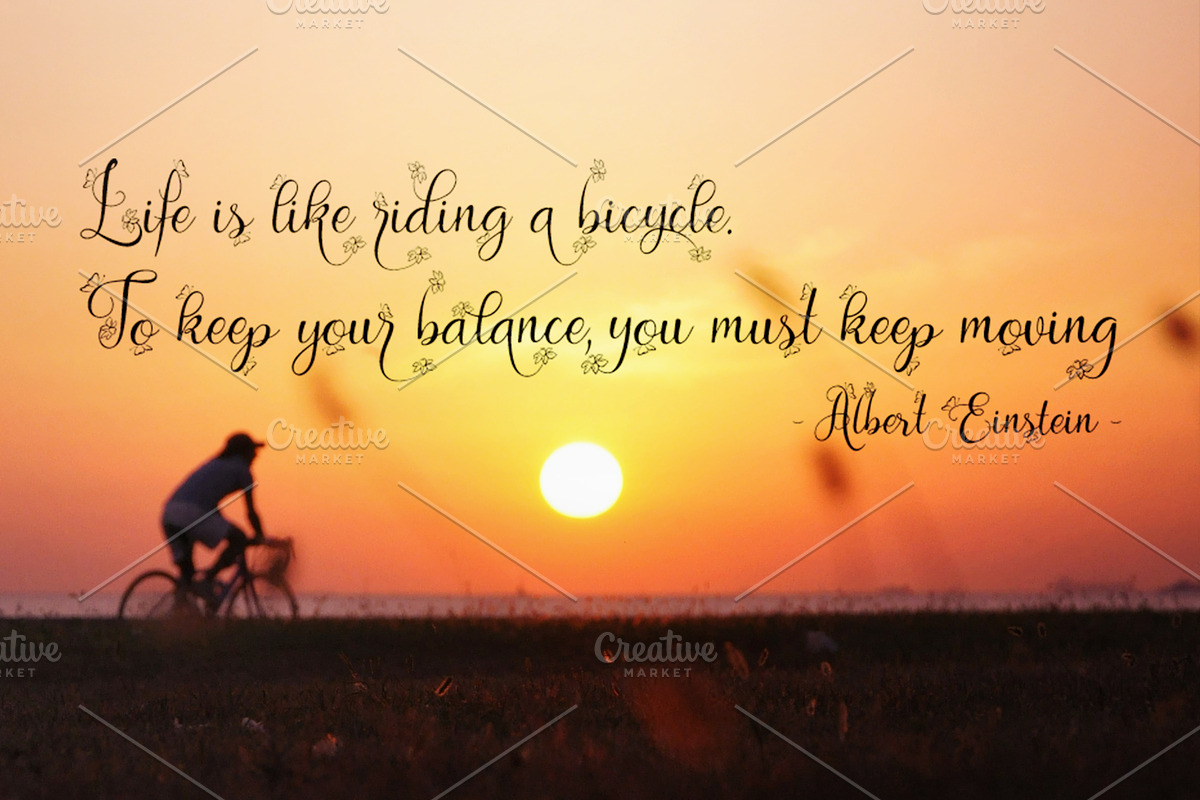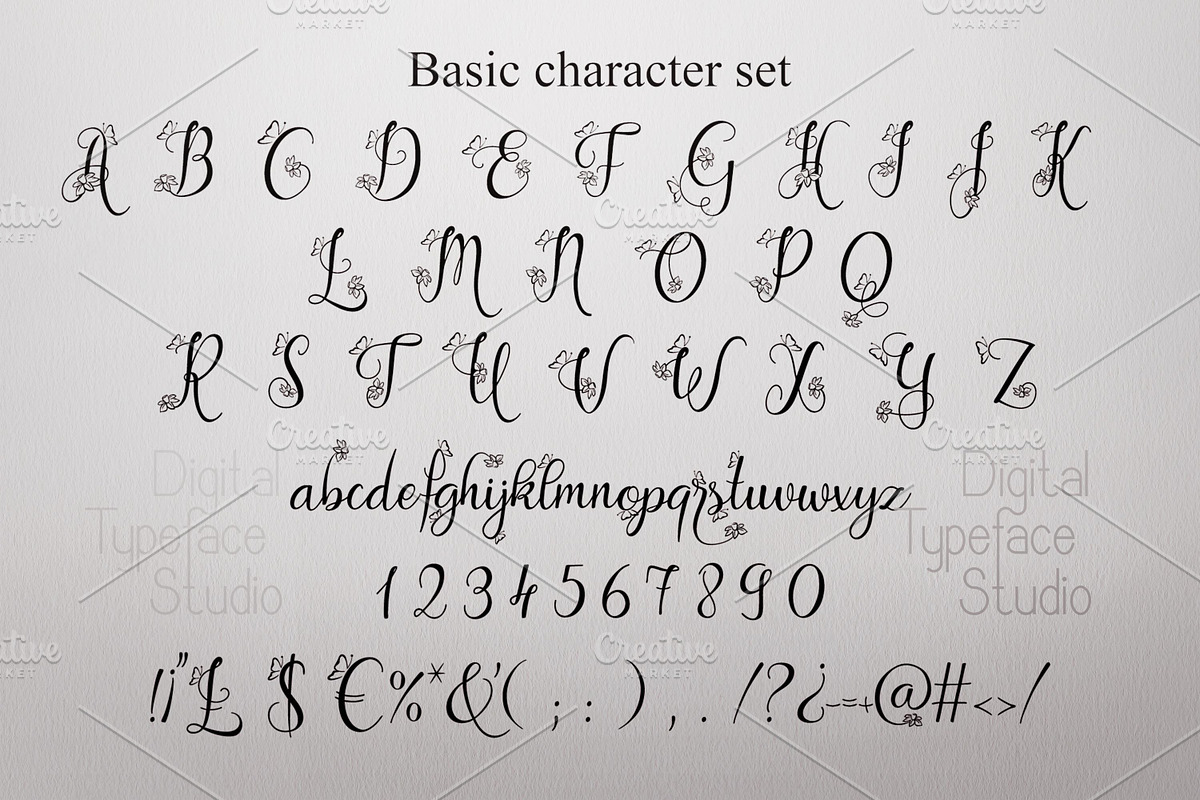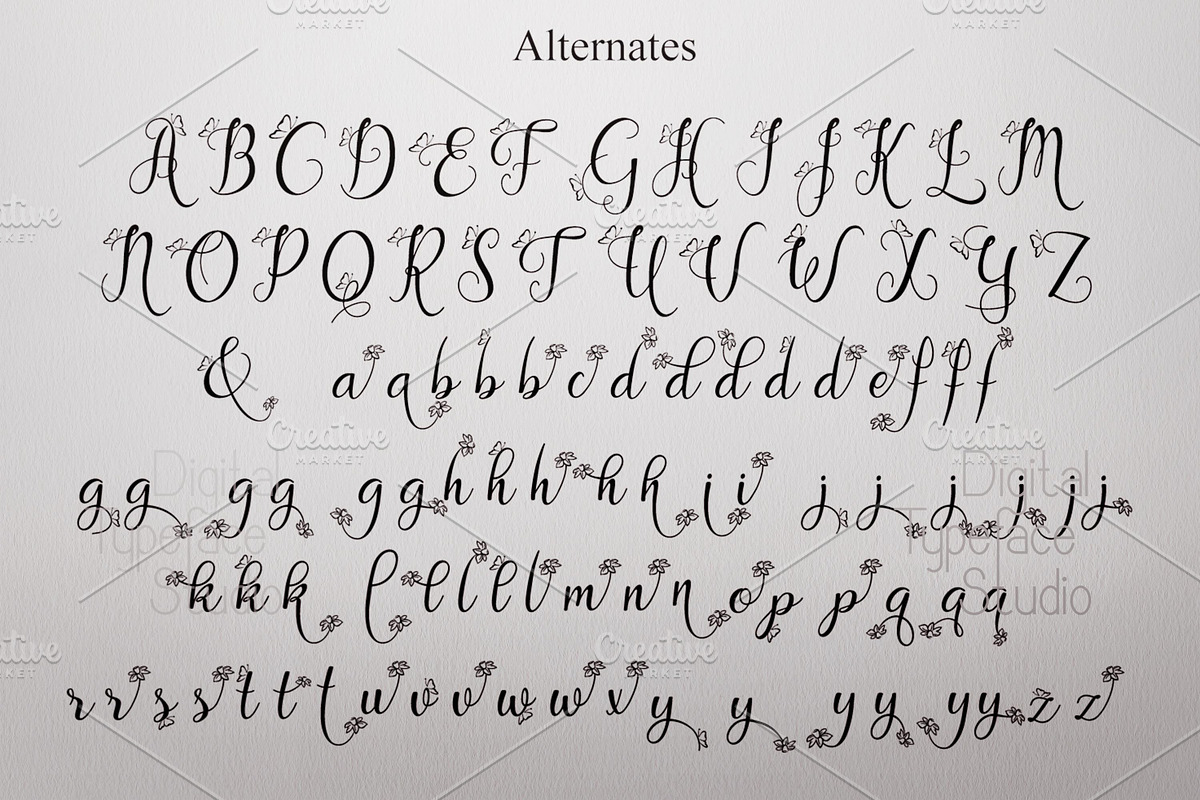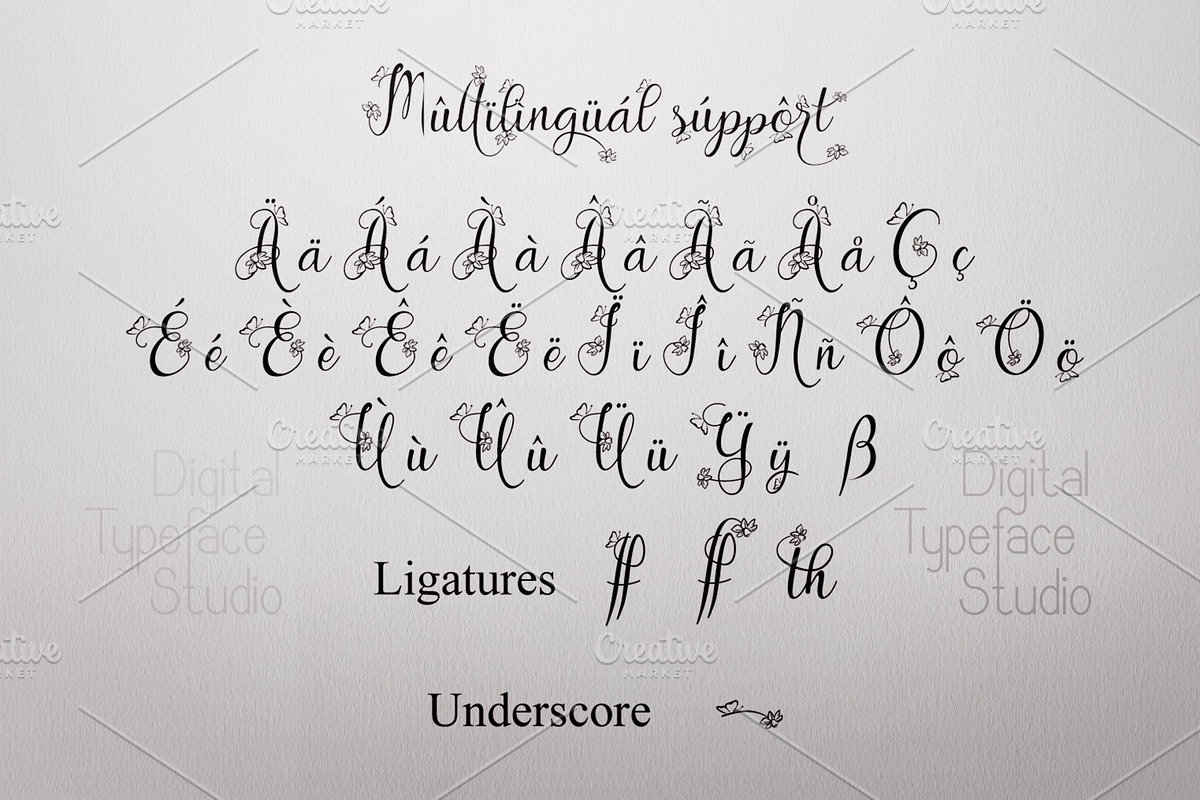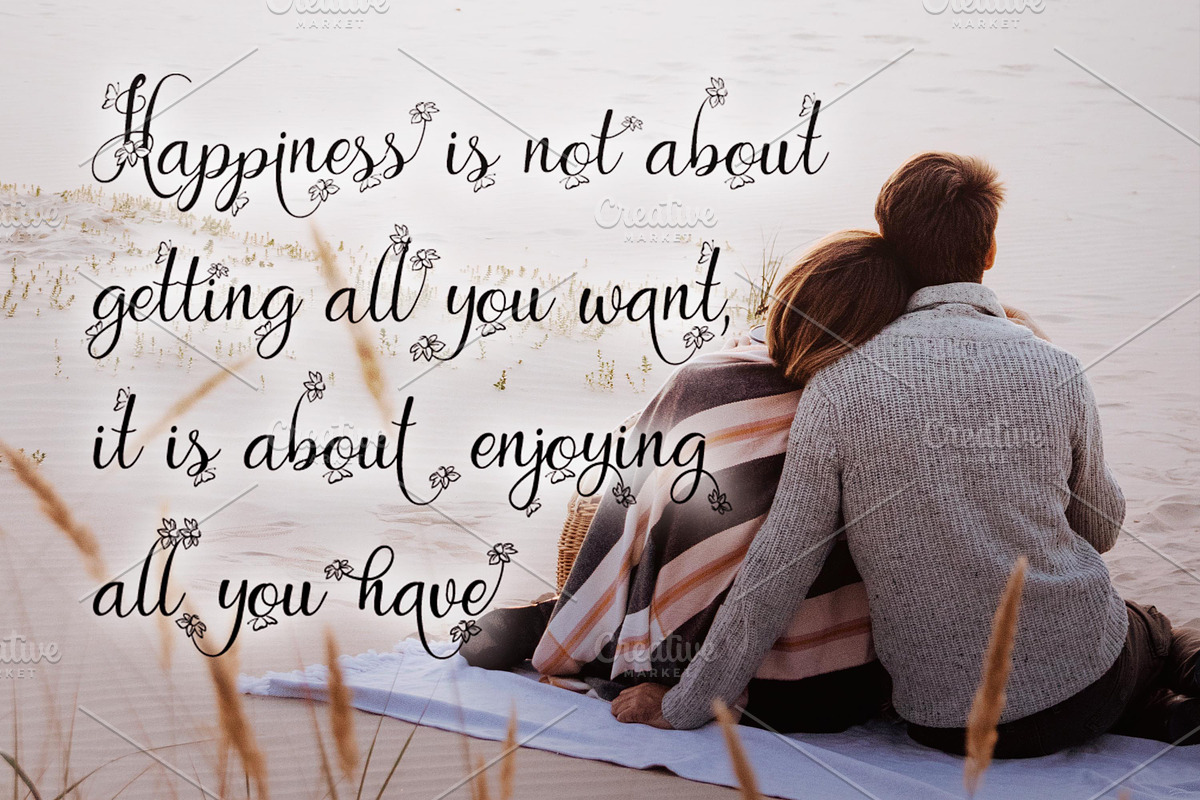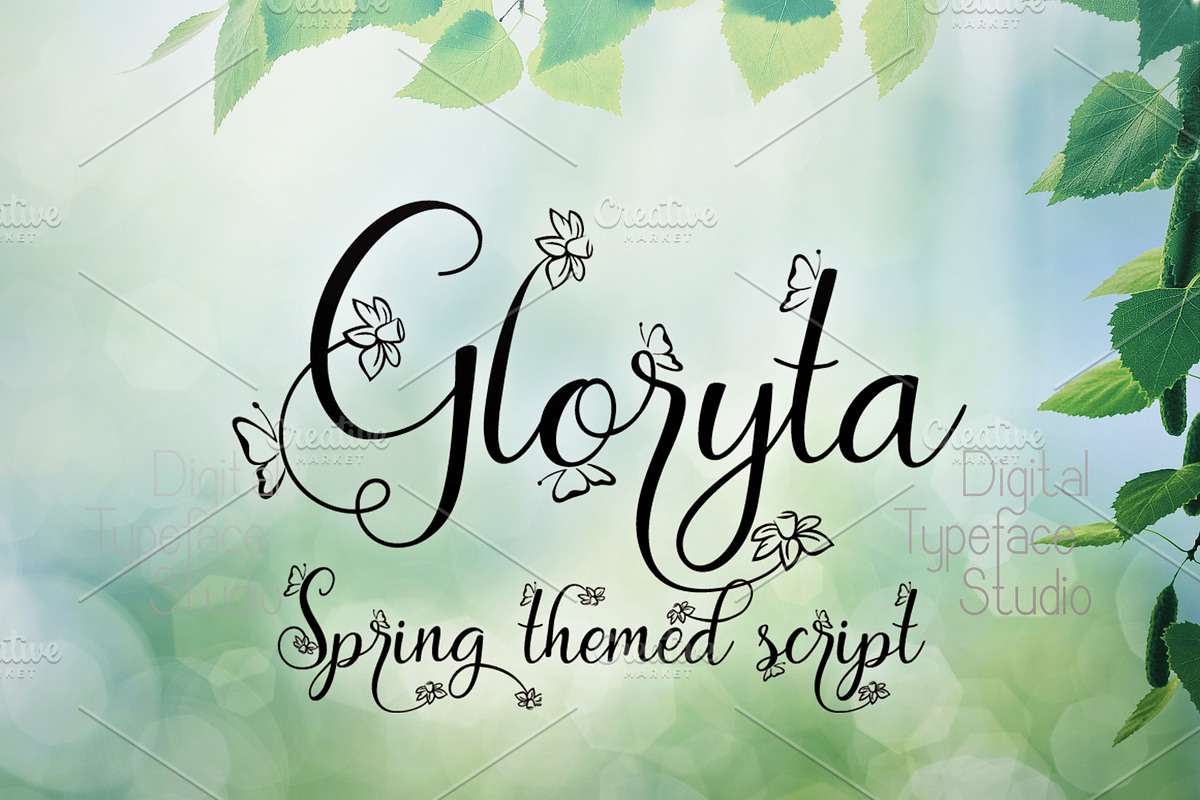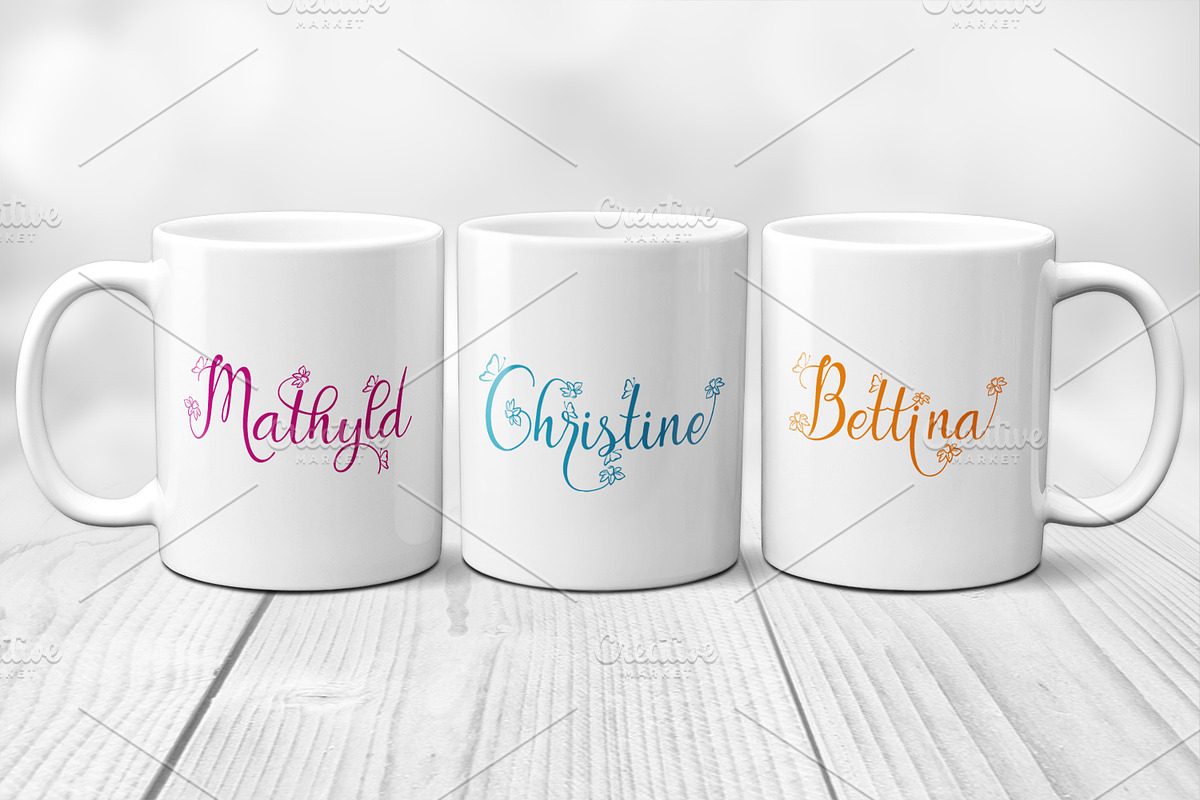
Gloryta
Gloryta is a modern, trendy and feminine handwritten font, that can be used for creative projects due to many features in it. Fresh and casual, this font is ideal for wedding invitations, cards, or any other design that might need a handwritten touch.
- Uppercases
- Lowercases
- Numerics
- Stylistic alternates